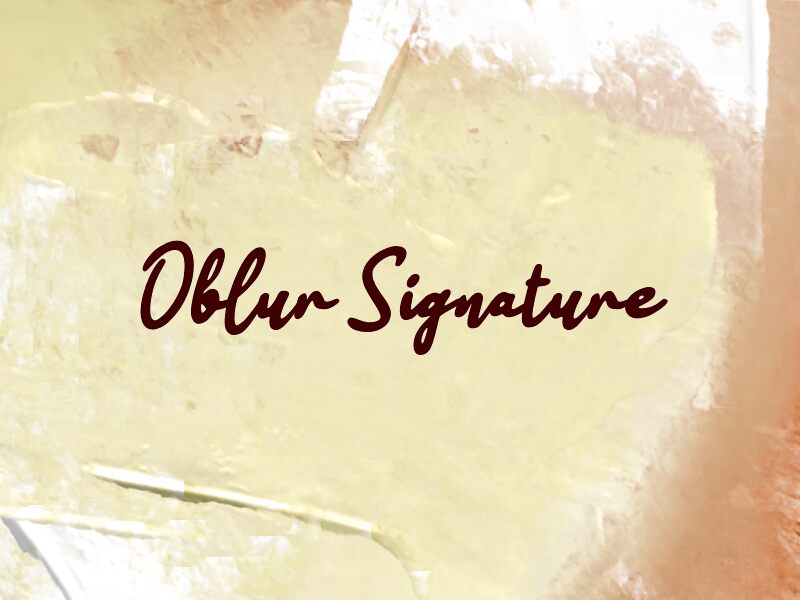
Oblur Signature font by wep is a free brush font with a warm, cozy feel. The friendly and approachable typeface evokes a lovely expression to suit personal, contemporary, or professional tasks and applications. Its casual elegance makes it perfectly suited for creative industries that prefer natural communication and a personalized touch.
Use Oblur Signature in invitations, pamphlets, branding projects, personal signatures, website designs, magazine covers, book covers, photoshoots, printed or handwritten notes, and others. A set of ligatures and alternates helps create a versatile, dynamic typography piece every time!
Oblur Signature is a stylish and elegant free font that is perfect for adding a personal touch to your designs. This font features smooth, flowing lines that evoke a sense of sophistication and creativity. Whether you are working on invitations, branding, or social media graphics, Oblur Signature will enhance your project with its unique and modern aesthetic.